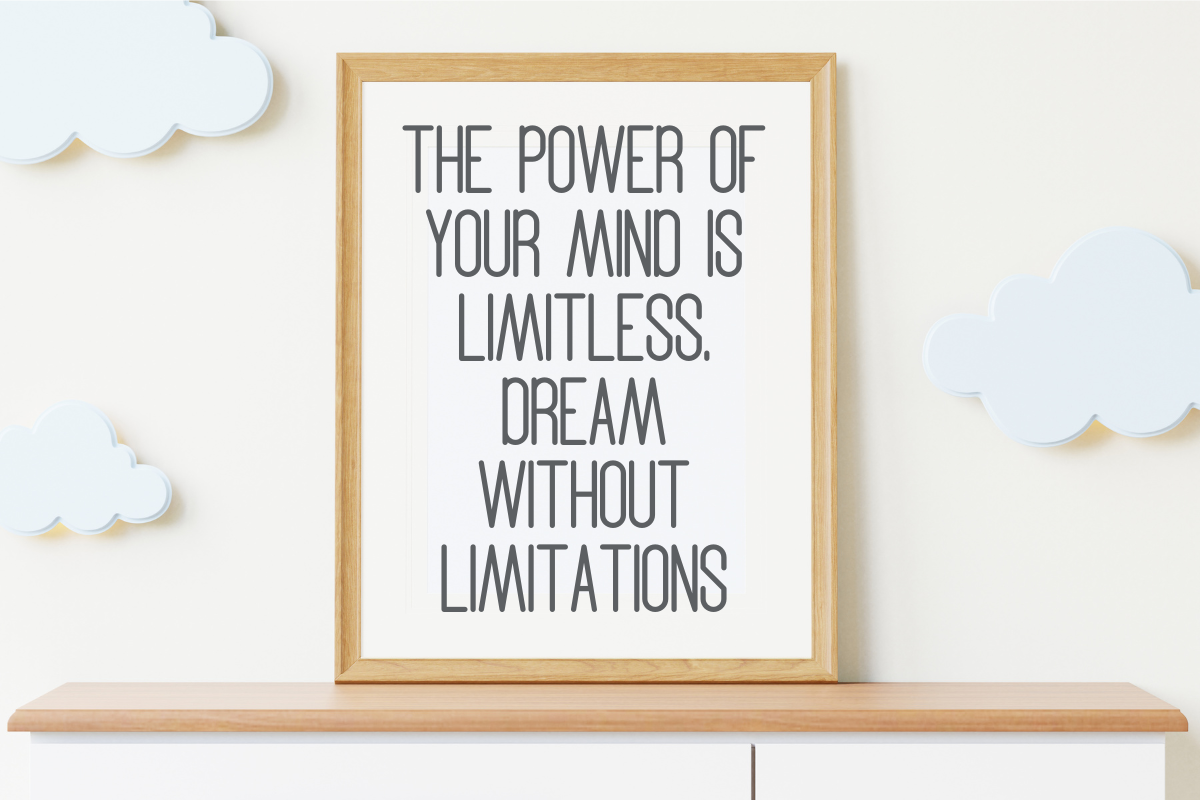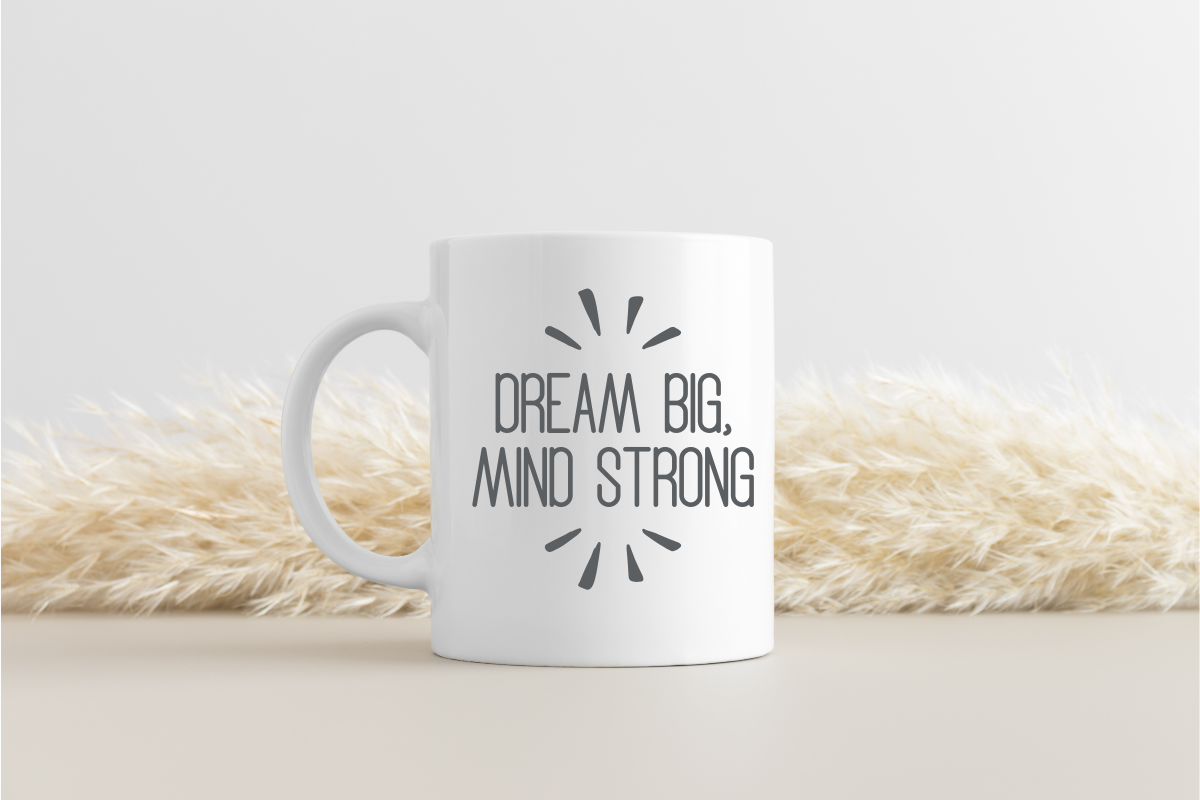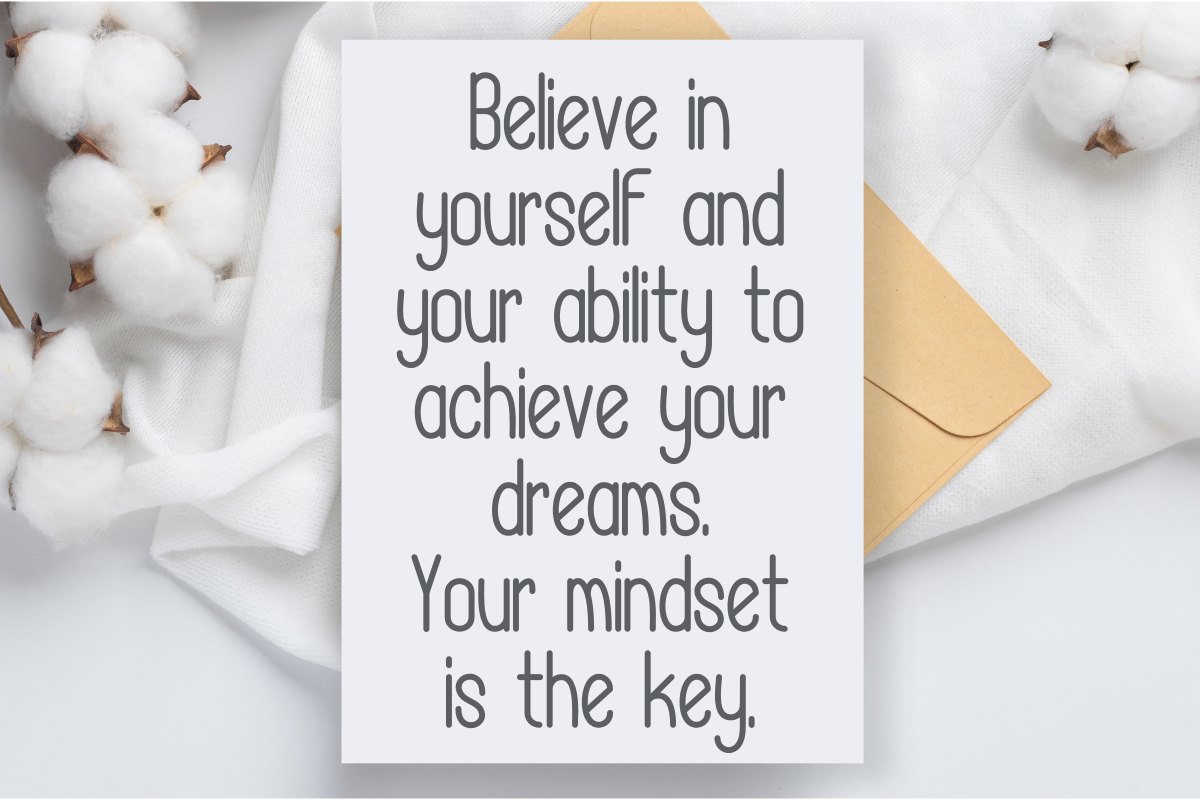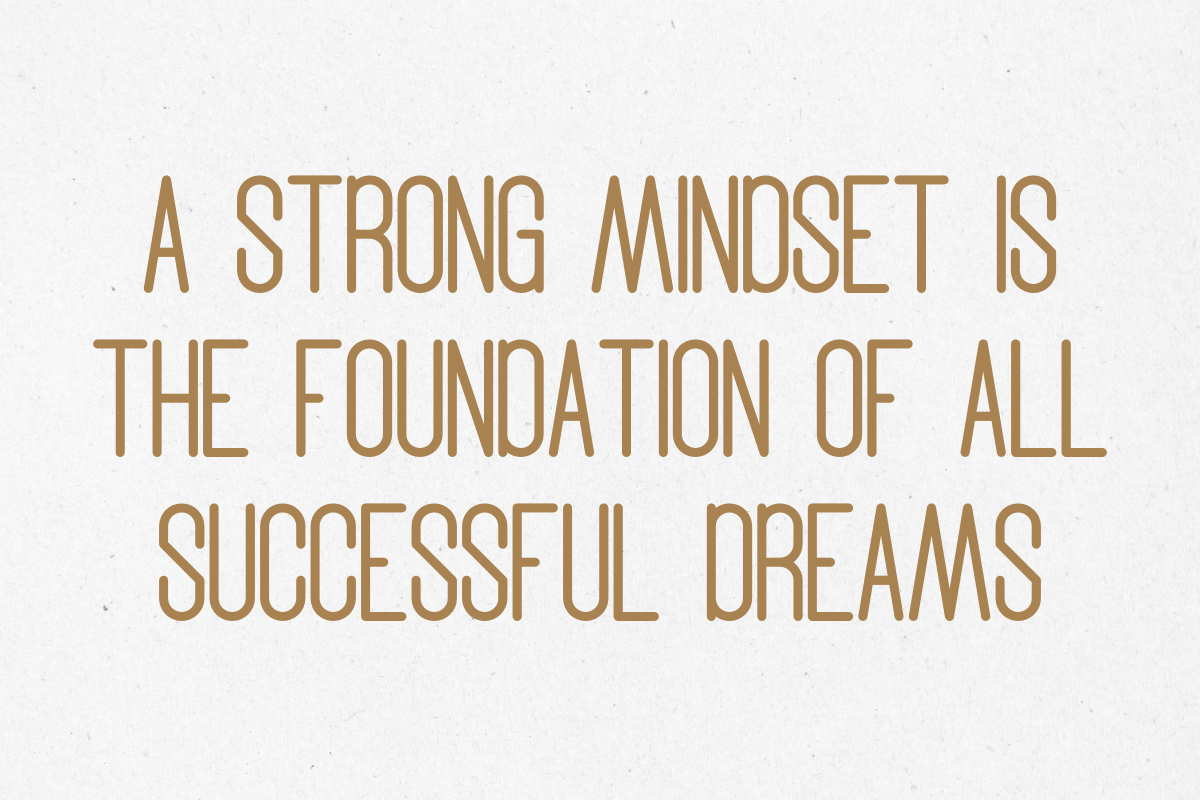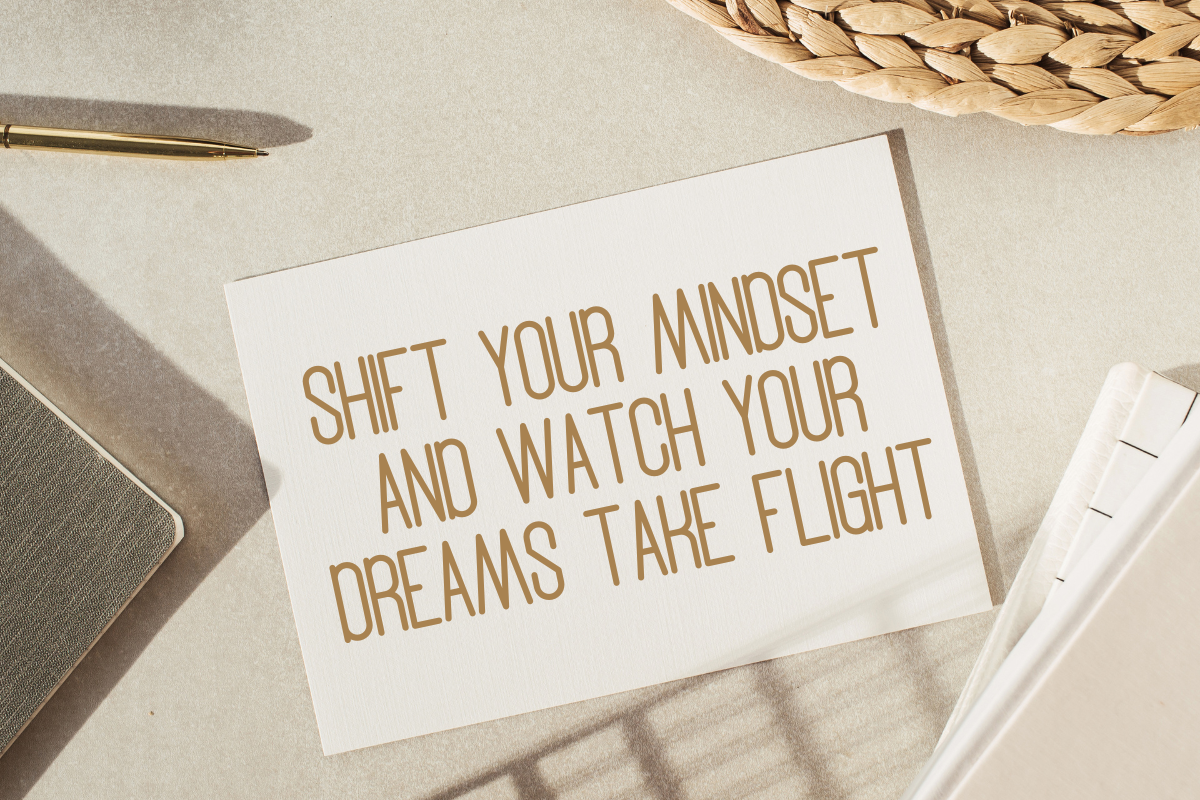
Mindset Dreaming - Playful Sans
Mindset Dreaming is a minimalist sans-serif font designed for a clean and modern aesthetic. Its monoline style makes it perfect for various design projects, including greeting cards, wall art, book covers, and mugs.